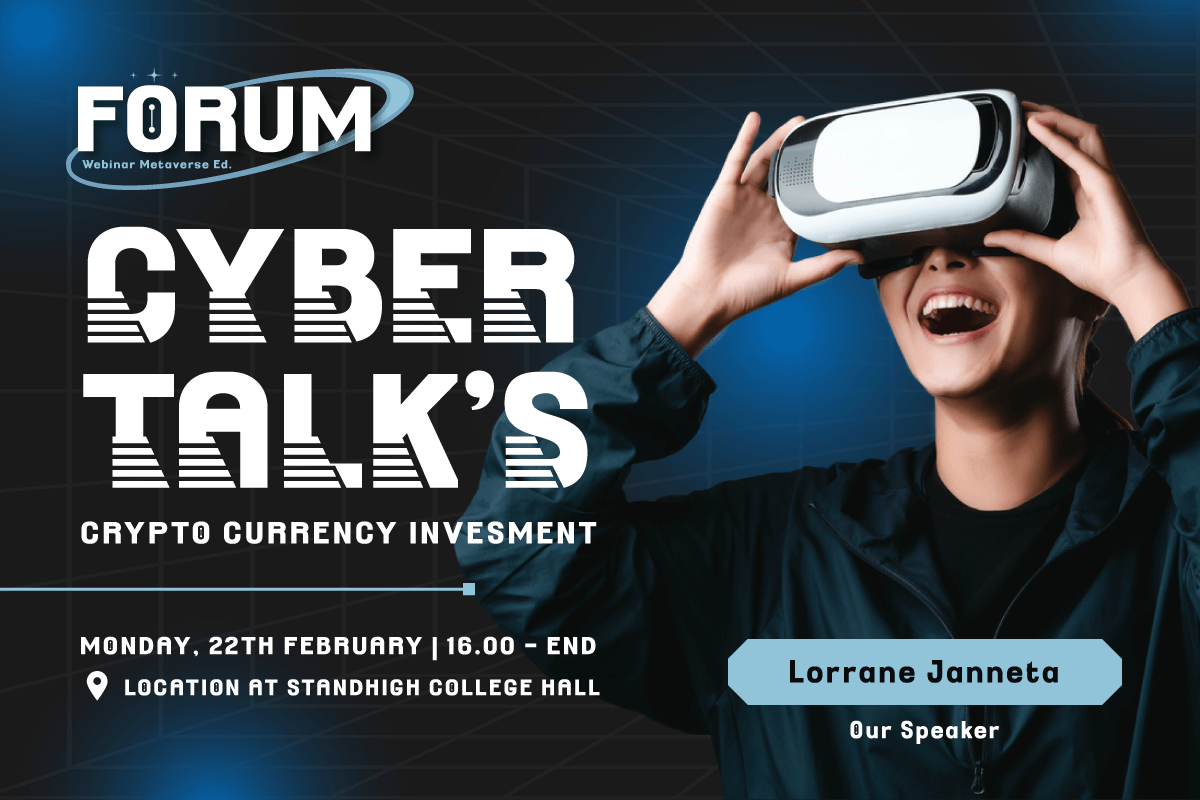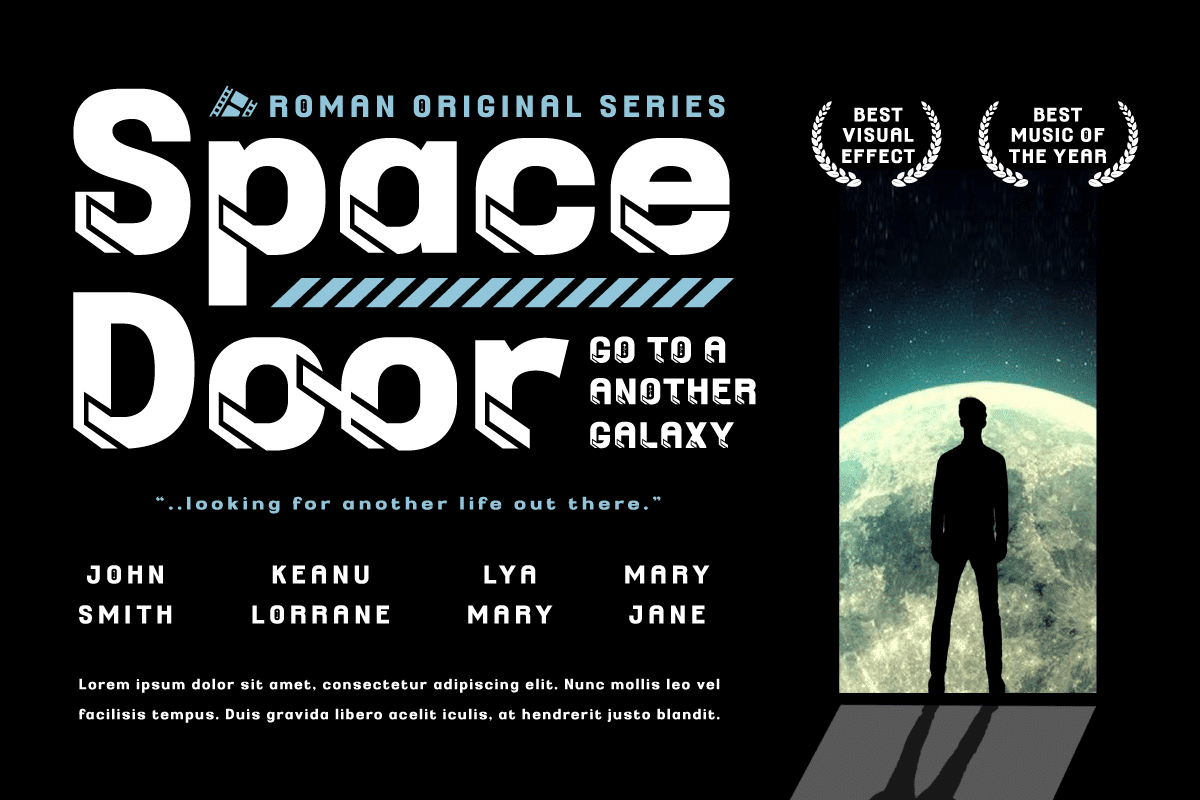
The Bokrun Font
The futuristic world with The Bokrun, a future-themed font that will color your design projects! Get a unique experience with a modern, futuristic, and sci-fi touch that radiates from each letter. The Bokrun presents impressive futuristic styling with a sophisticated and dynamic design. This font will give a fresh and innovative look to any project that needs a touch of the future. With The Bokrun, you can easily create modern and evocative designs.